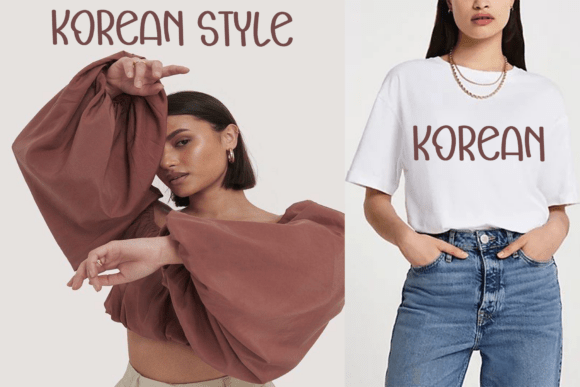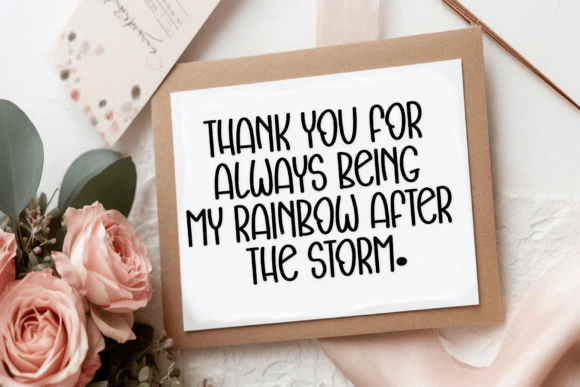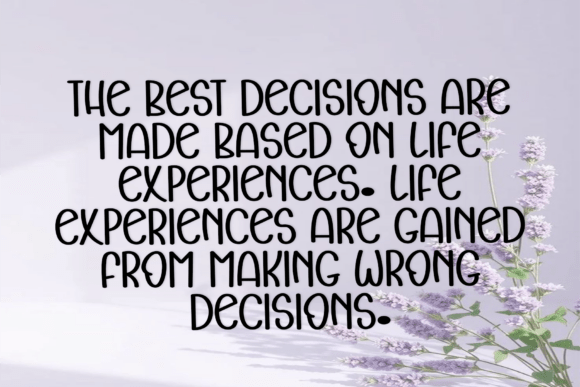
Introduction to Beauty Shop Font
Beauty Shop is a charming, fluid, and slightly condensed font with a sleek, monoline structure.
Its elegant curves and tall letterforms create a modern, feminine, and friendly aesthetic that is both unique and professional This font is perfect for beauty and cosmetic branding, boutique store signage, custom packaging, personalized stationery, and any design that requires a chic, stylish, and approachable handwritten touch.
Key Features of Beauty Shop Font
Why Choose Beauty Shop Font?